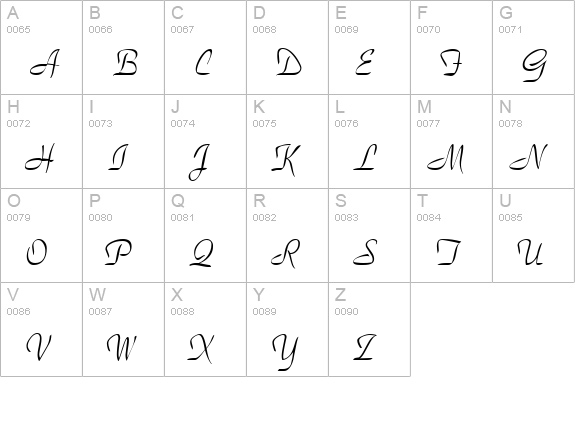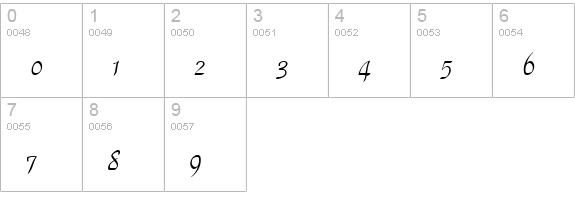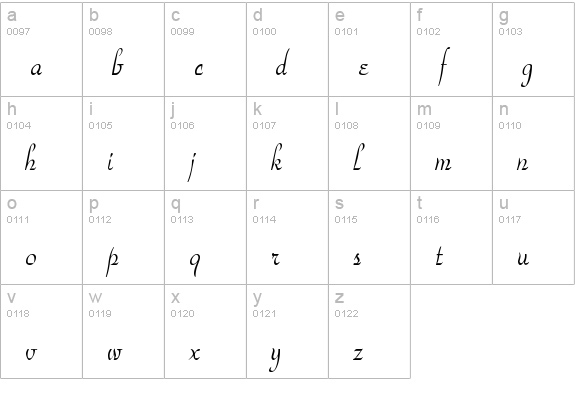
ParkplaceNarrow Regular Font Details
ParkplaceNarrow Regular is the standard, neutral variant in the ParkplaceNarrow typeface family \xE2\x80\x94 well suited to general body text, paragraphs, and standard typographic work.
ParkplaceNarrow Regular font is a sleek and modern typeface that is perfect for any project that requires a sophisticated and clean look. With its narrow proportions and elegant curves, this font is ideal for headlines, logos, and branding materials. What makes ParkplaceNarrow Regular font even more appealing is that it is available for free. Yes, you read that right! You can download this font without any cost at FontsMarket.com. This means that you can enhance your designs with a high-quality typeface without having to worry about breaking the bank. The versatility of ParkplaceNarrow Regular font is truly impressive. Whether you are designing a website, creating a business card, or working on a poster, this font will make your text stand out and grab attention. Its subtle details and balanced letterforms create a harmonious and professional appearance, making it suitable for both formal and casual designs. Furthermore, ParkplaceNarrow Regular font is easy to read, making it a great choice for body text as well. Its legibility ensures that your message is conveyed clearly and effectively, whether it's in a printed document or on a digital platform. By using ParkplaceNarrow Regular font, you can add a touch of elegance and sophistication to your designs. Its clean lines and modern aesthetic make it a timeless choice that will never go out of style. Plus, the fact that it is freely available for download at FontsMarket.com makes it even more appealing. Don't miss out on the opportunity to enhance your designs with this stunning typeface. Download ParkplaceNarrow Regular font today and elevate your projects to new levels of professionalism and sophistication.